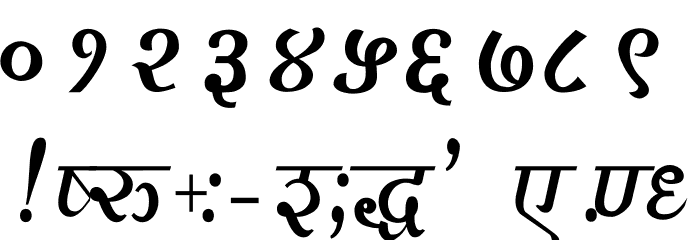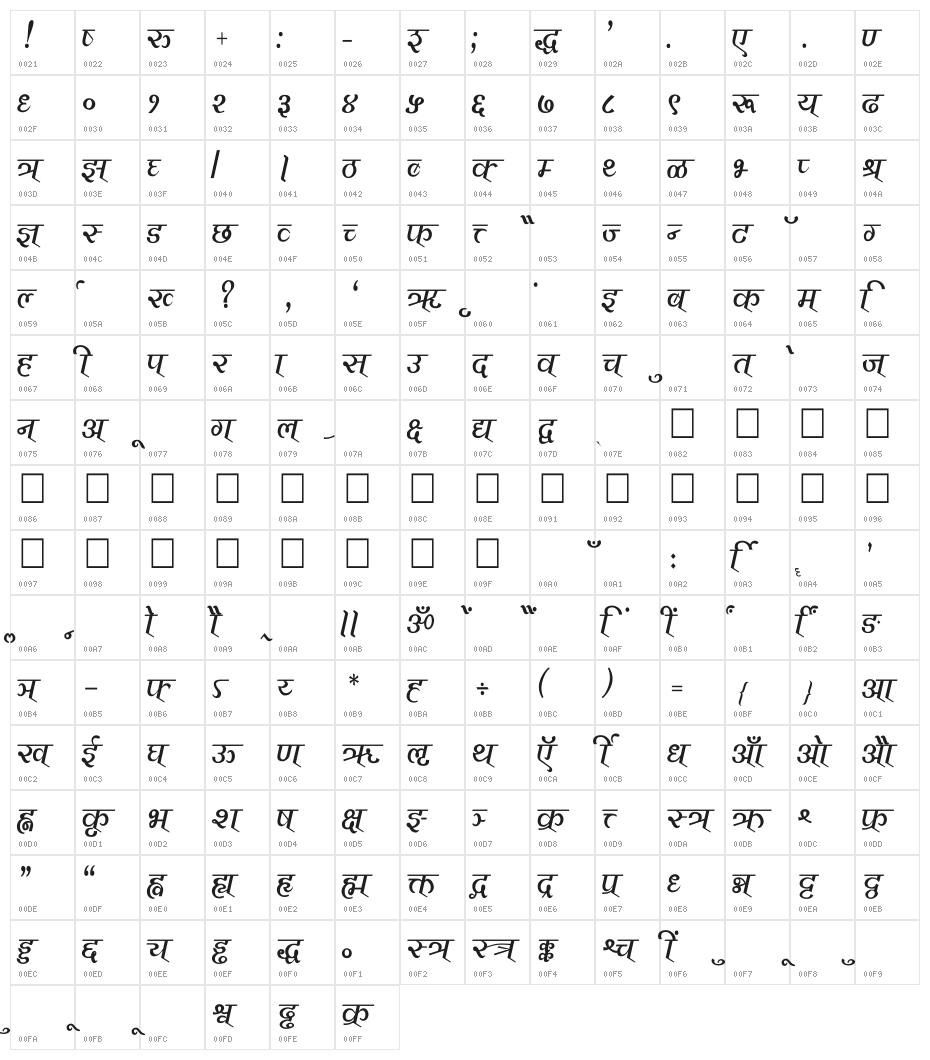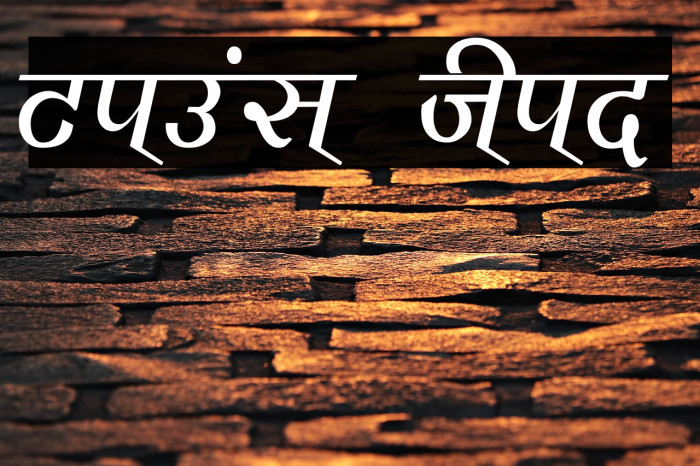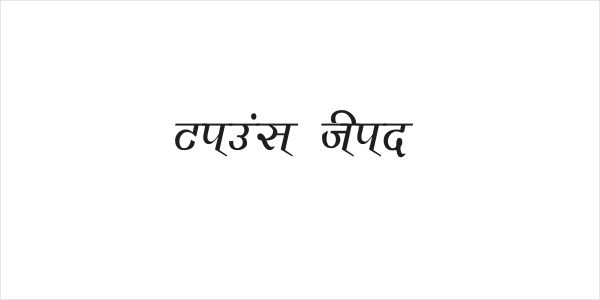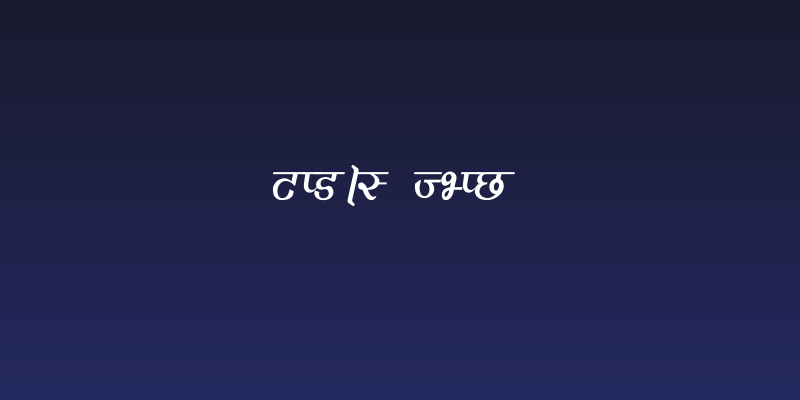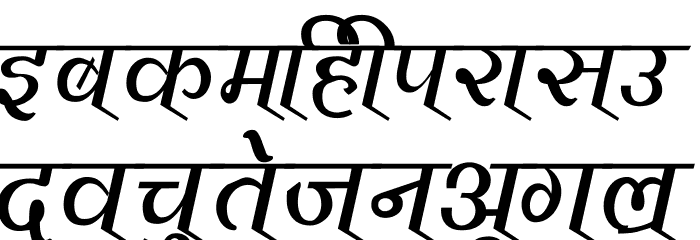
Vimal Thin Font
Vimal Thin Description
This font showcases a traditional Devanagari script with a modern twist. The characters are elegantly crafted with a slight slant, giving them a dynamic and fluid appearance. The strokes are consistent and well-balanced, with moderate contrast between thick and thin lines. The overall design maintains a sense of readability while incorporating artistic flair. The numerals are distinct and align well with the overall style, ensuring clarity in multilingual contexts. Special characters are integrated seamlessly, maintaining the font's cohesive aesthetic.
| Use Case | Headlines, Body text, Cultural publications |
| Proposed Projects | Ideal for cultural publications, educational materials, and artistic projects requiring a traditional yet modern script. |